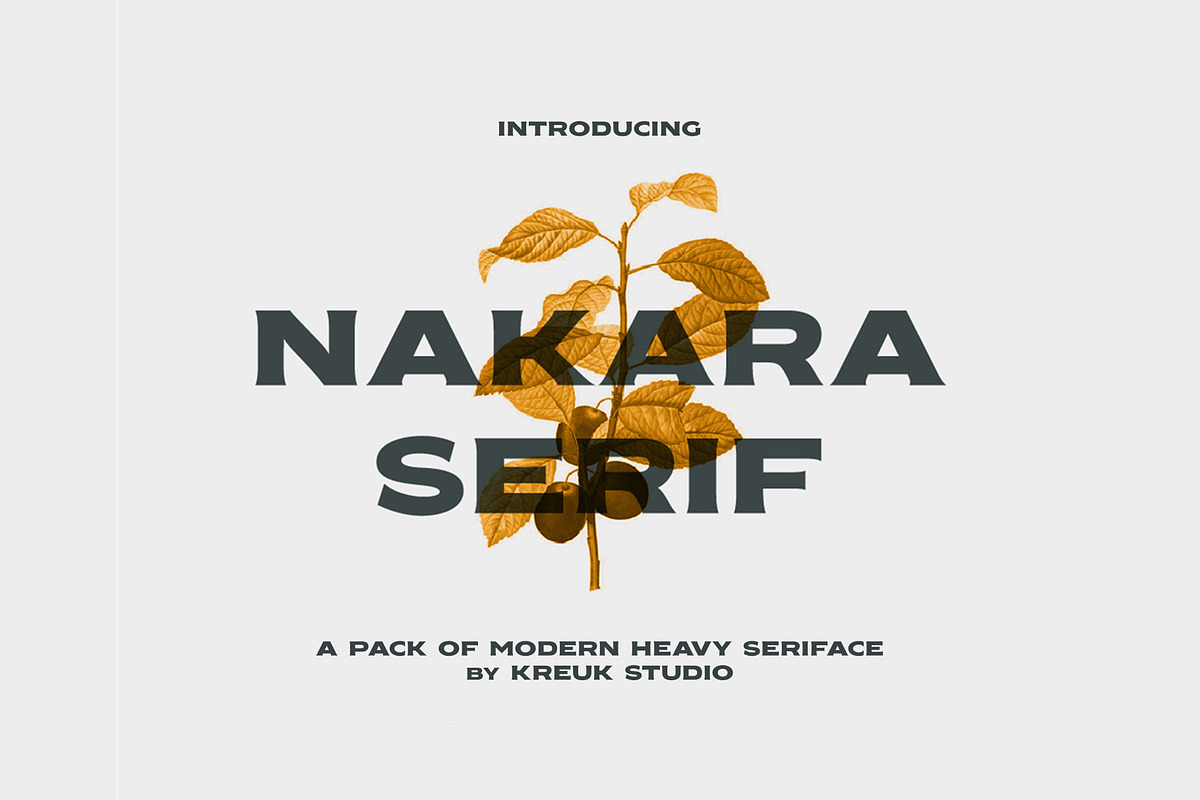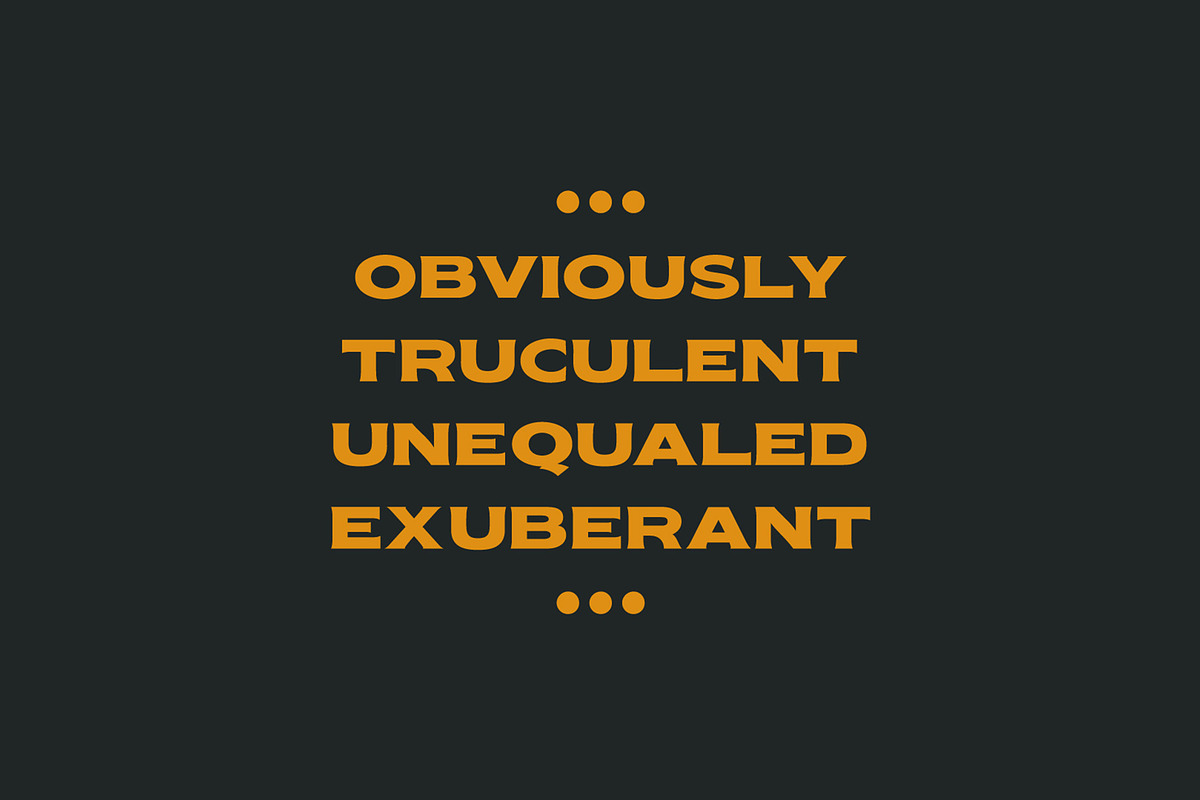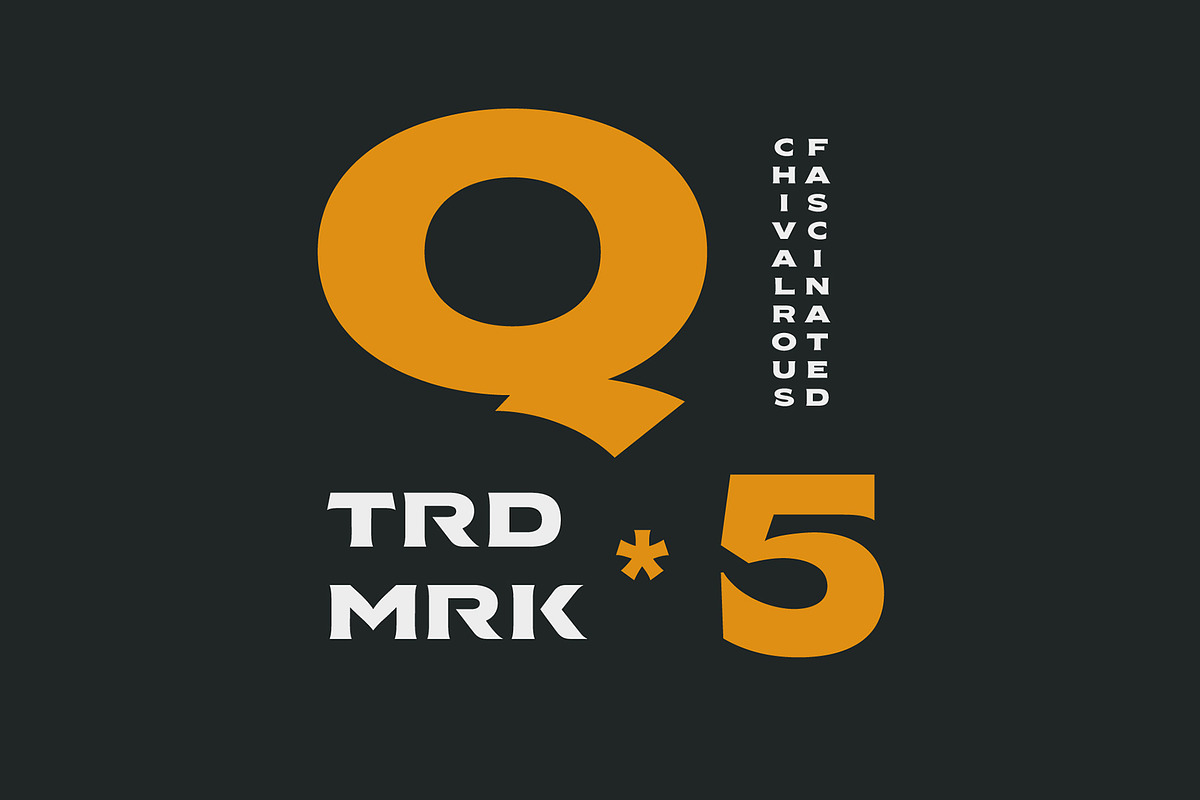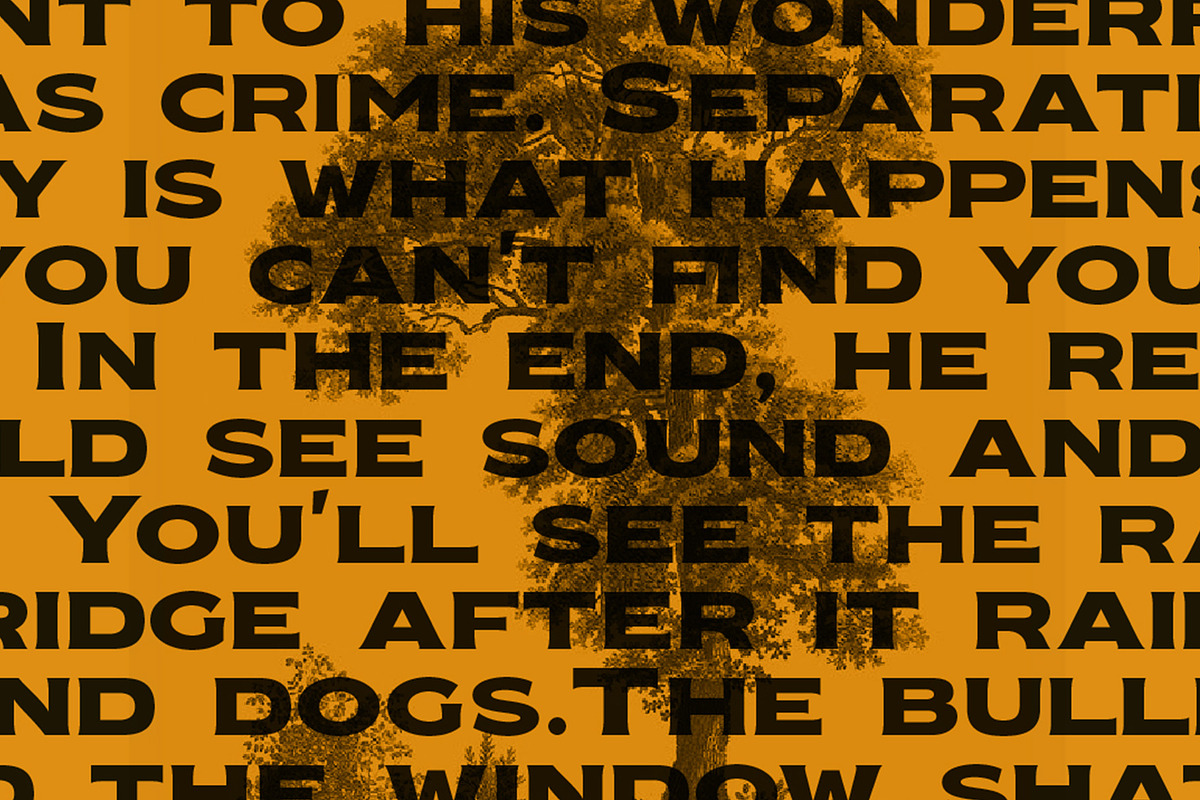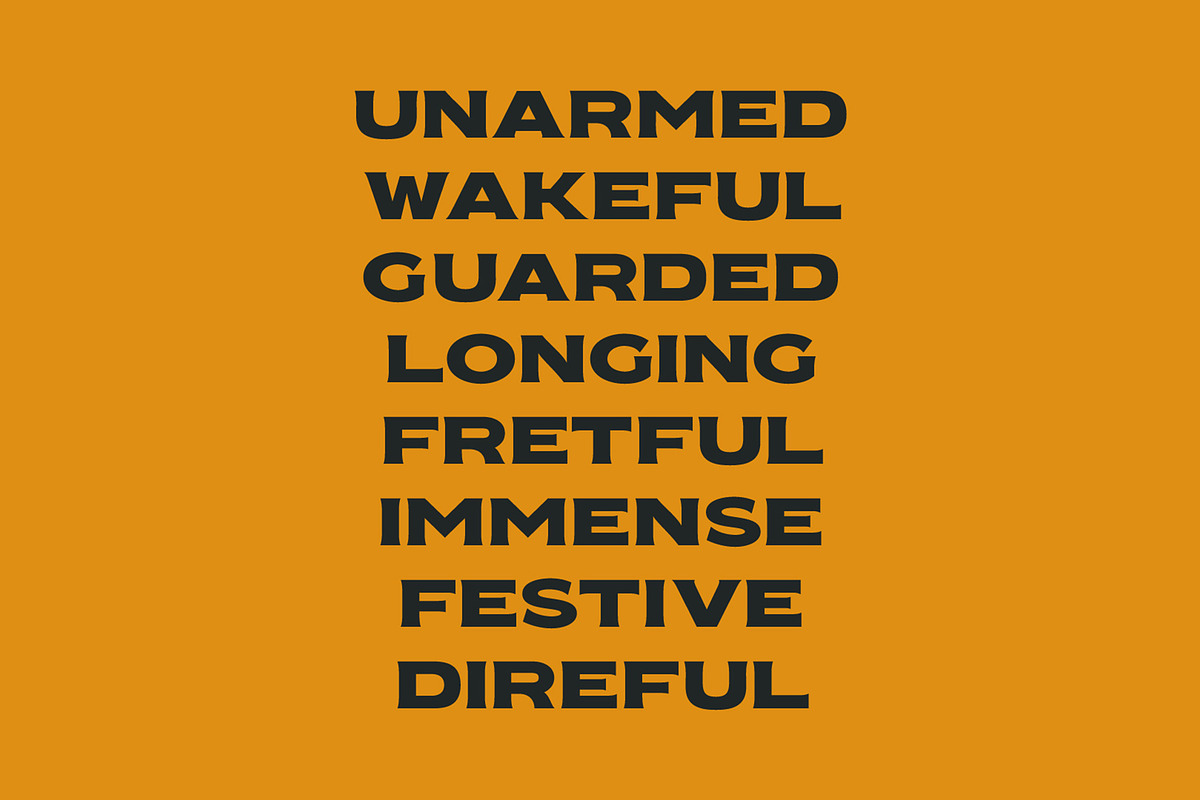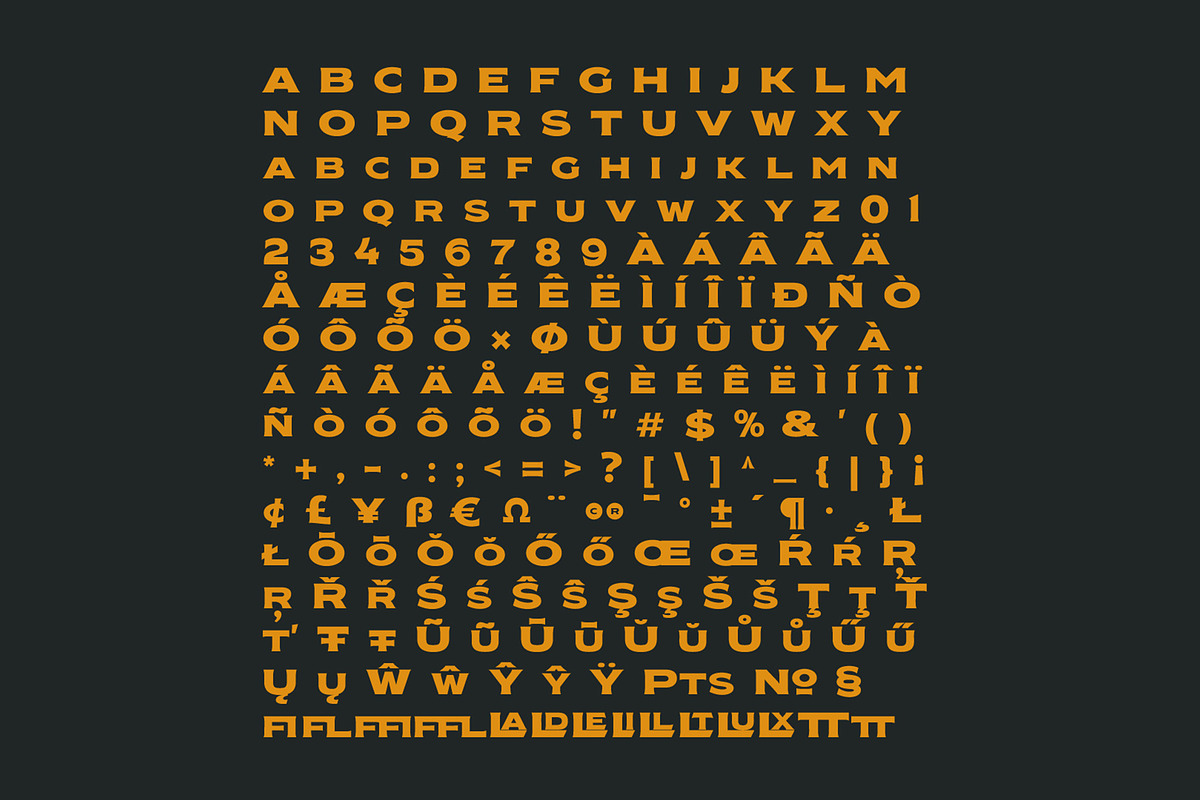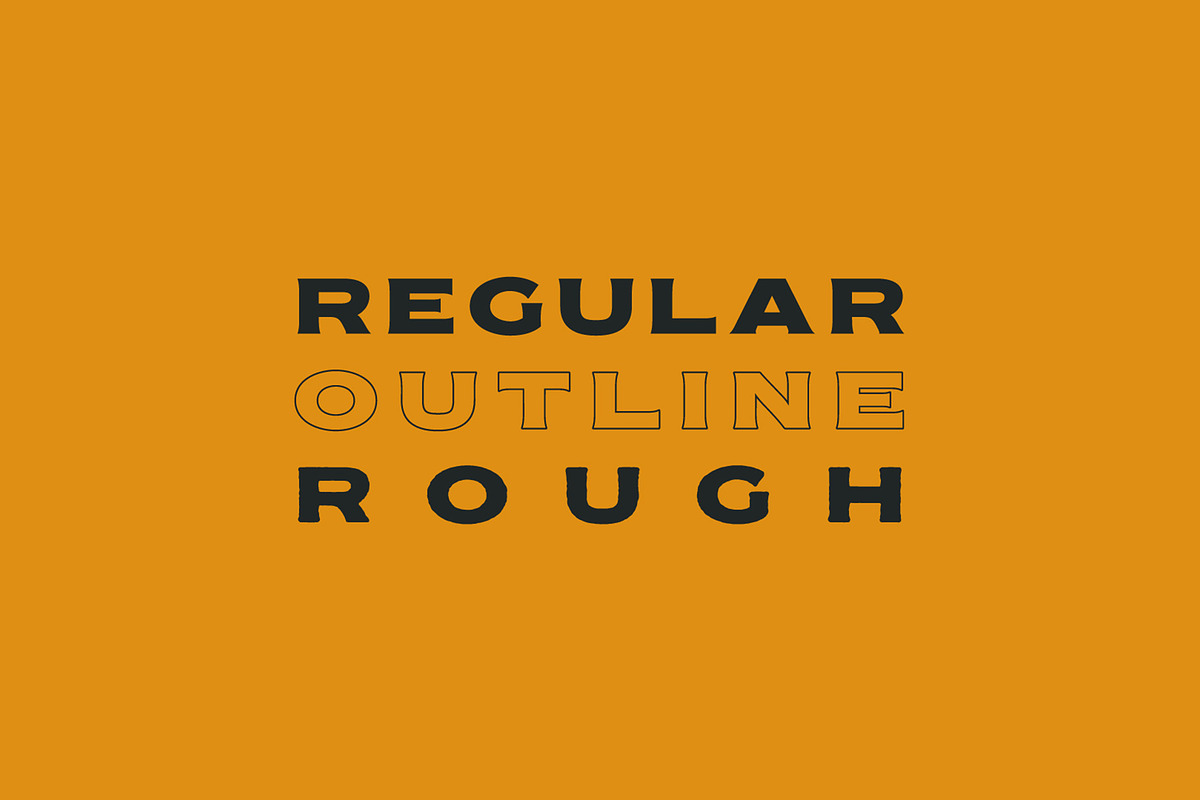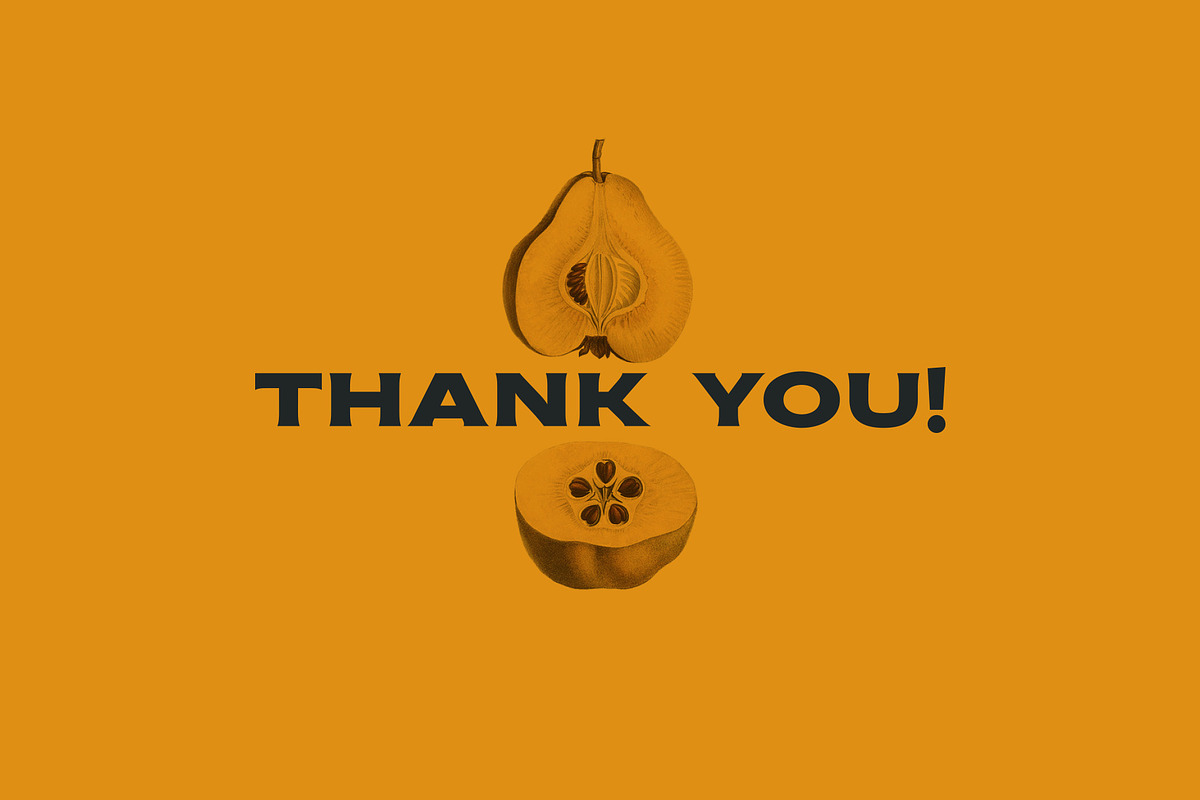
Nakara Serif | Modern Seriface
Nakara Serif is All-Caps Modern Serif Typeface with solid heavy impressions.
Available in 3 styles:
- Outline
- Rough
Nakara Serif ideally suited for headline title, badges lockup, logo, branding, posters etc. Supports Multi-language, Stylistic Ligatures & PUA encoded for alternates styles.